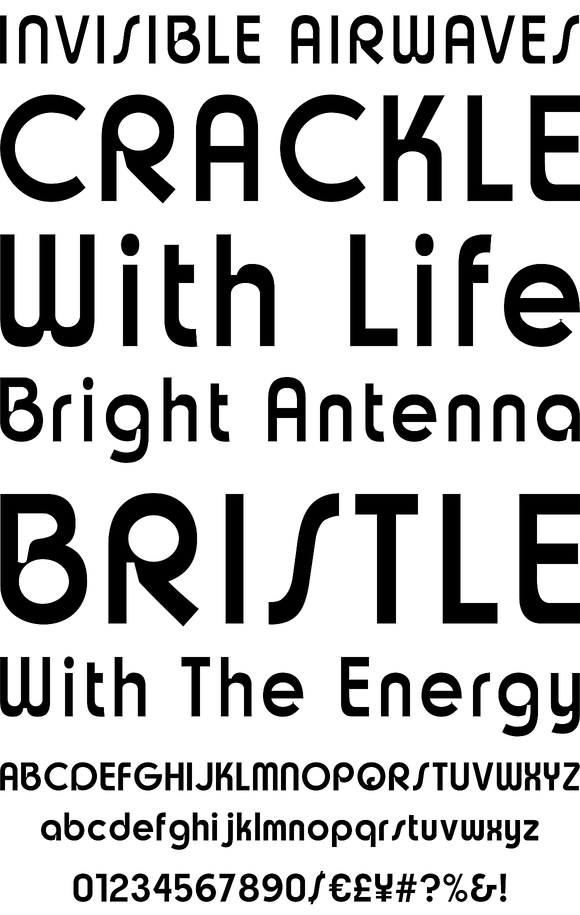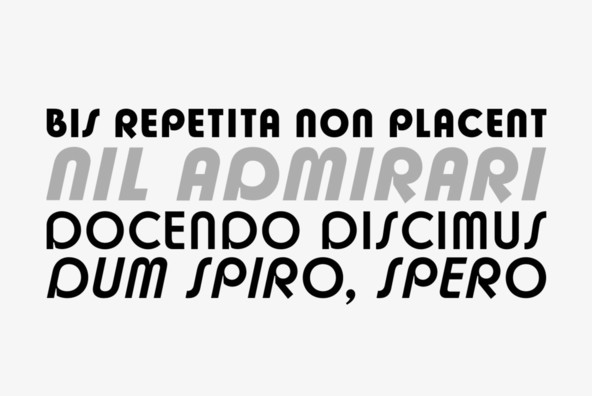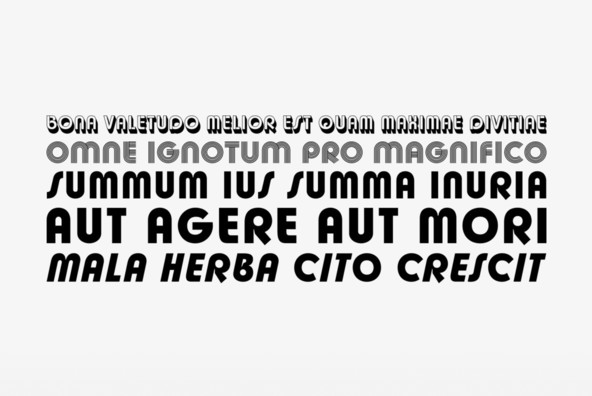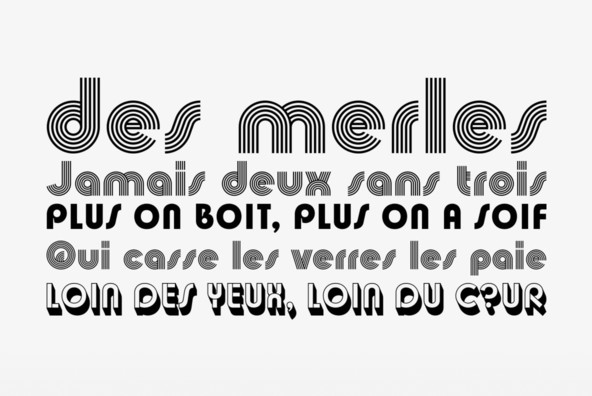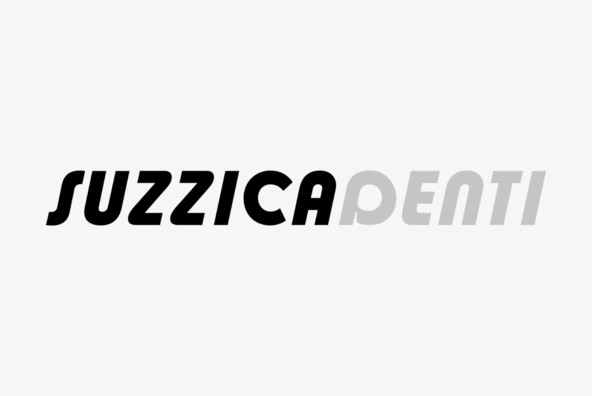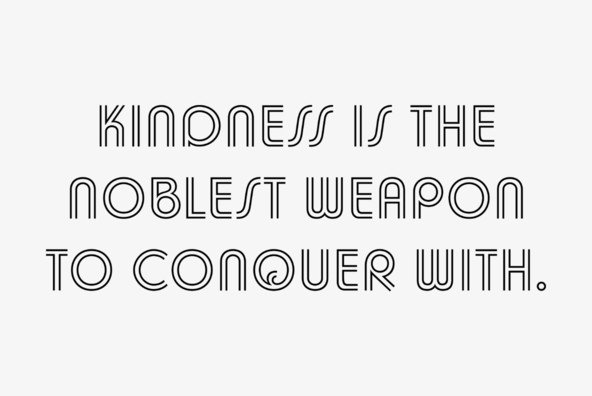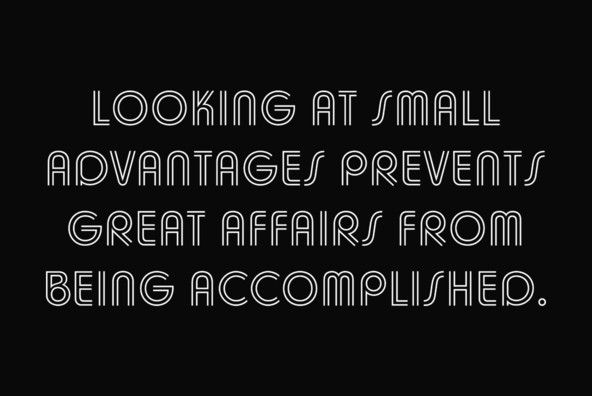
Churchward Design
Churchward Design Lines is the latest addition to the Churchward Design family. The family now consists of nine unique fonts, all based on a classic, straightforward geometric glyph forms, with the addition of Churchward’s quirky details.